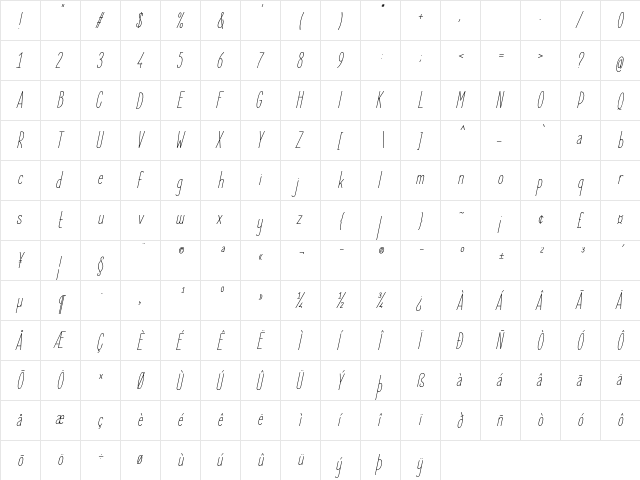
Elegant Sans Light Italic
Design Context for Elegant Sans Typeface
Elegant Sans is a composed and adaptable typeface that performs quietly and consistently across a wide range of design contexts. The dynamic lean of this cut emphasises speed and emphasis in any layout. Its slender proportions lend an understated elegance to any composition.
Pro Tip: Use Elegant Sans for emphasis, pull quotes, and subheadings where its slanted energy can add rhythm to the layout.